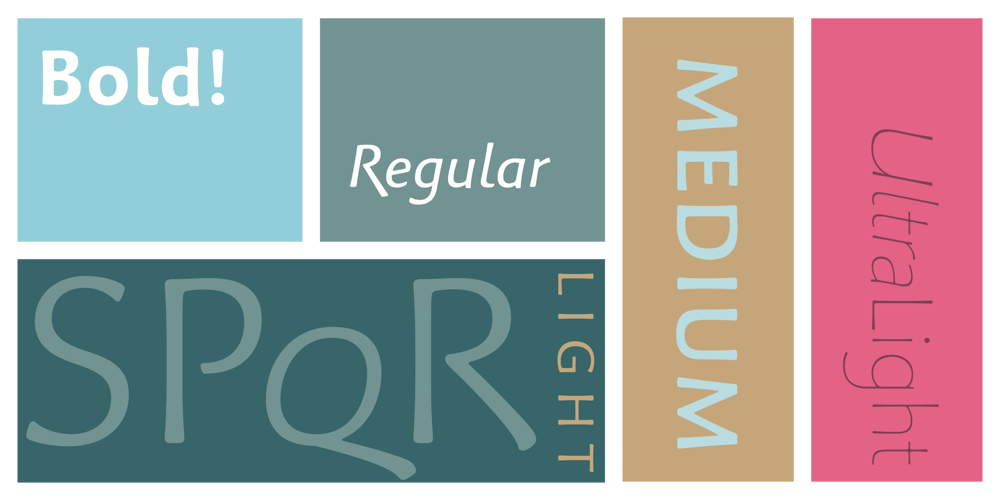
Palatino Sans Informal Font Family was designed by Hermann Zapf, Akira Kobayashi and published by Linotype. Palatino Sans Informal contains 10 styles and family package options. Palatino Sans Informal was designed as part of a group of three font families: Palatino nova, Palatino Sans, and Palatino Sans Informal. Together these three families act as the fulfilment of Herman Zapf’s original Palatino idea. Palatino, which was born as a metal typeface in 1950, proved to be one of the 20th Century’s most popular designs. Not only is Palatino Sans Informal a completely new typeface, it is also a completely new interpretation of the entire sans serif genre. Its letterforms are curved, rounded, and soft, not hard and industrial. In comparison with Palatino Sans, Palatino Sans Informal offers eccentricities that are somewhat artistic and more individual looking. The fonts in the Palatino Sans Informal family include several OpenType features, such as an extended character set covering all Latin-based European languages, old style figures, small caps, fractions, ordinals, ligatures, alternates, and ornaments. Palatino Sans Informal can be mixed well with Palatino and Palatino Sans.